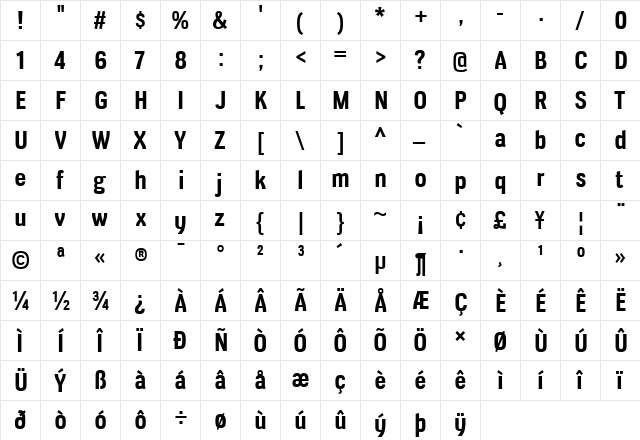
Veriox Bold Font Preview
Veriox Bold
Veriox Bold Font Details
Design Context for Veriox Typeface
Veriox takes a measured approach to typography — its balanced proportions and neutral character make it a reliable workhorse for both digital and print work. Its bold stroke weight gives it real presence on the page.